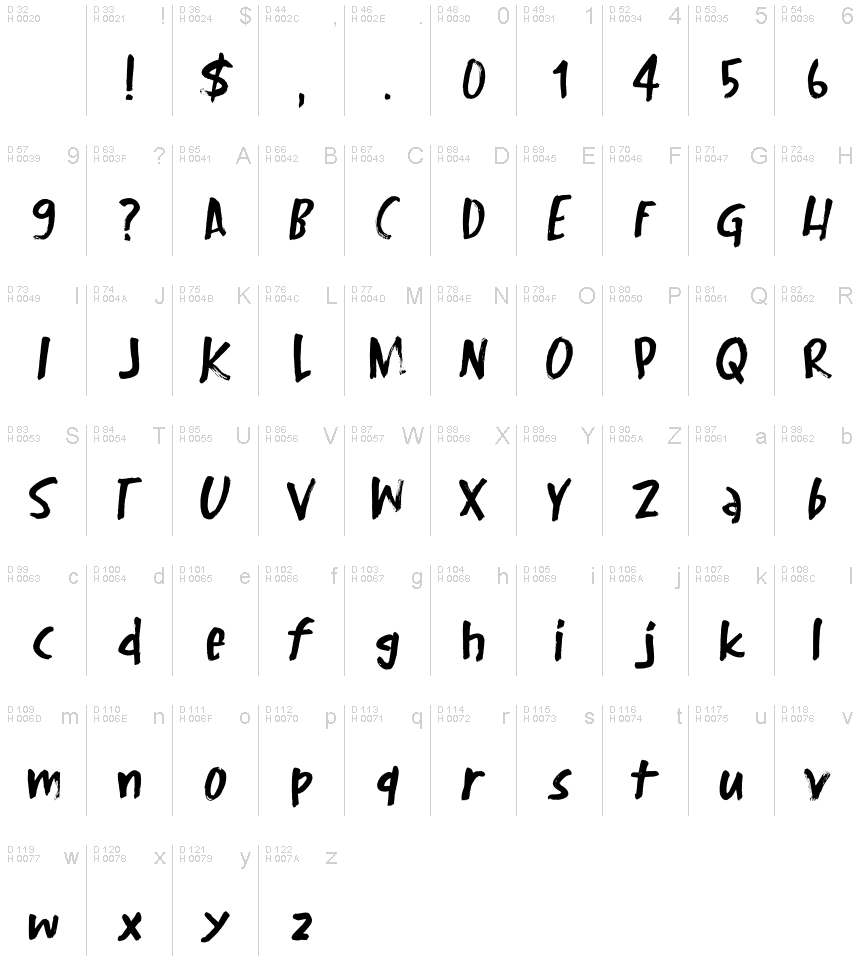
Supreme Leader DEMO Regular
Supreme Leader font, designed by David Kerkhoff of Kitchen Table Type Foundry, exudes a bold, artisanal flair that captures attention with its striking brush style. This font embodies a vibrant personality through its expressive strokes and dynamic forms, making it ideal for creative projects seeking a unique touch. The weighty characters carry an air of confidence while the fluidity of the brushwork introduces an element of spontaneity and warmth.
Its captivating presence lends itself well to various design contexts—perfect for eye-catching headlines, promotional materials, or artistic branding. Whether gracing posters or enhancing digital content, Supreme Leader adds a distinctive layer of character that is sure to resonate with audiences looking for authenticity and flair.